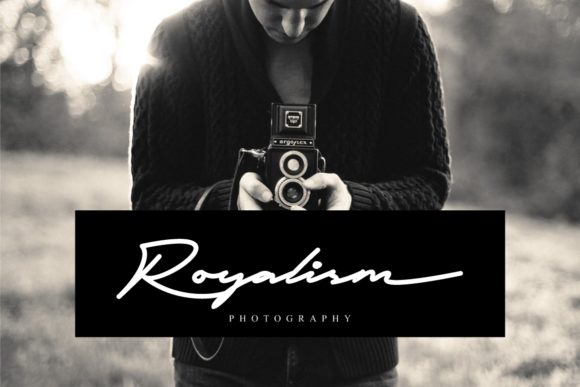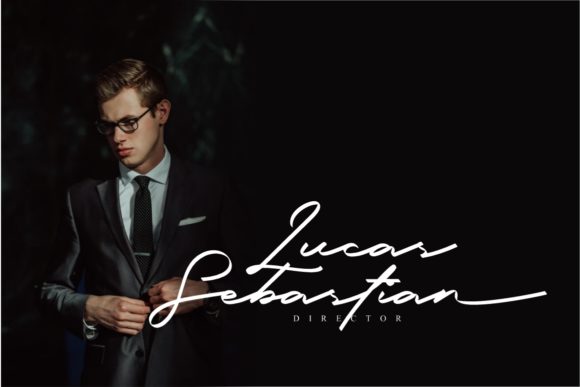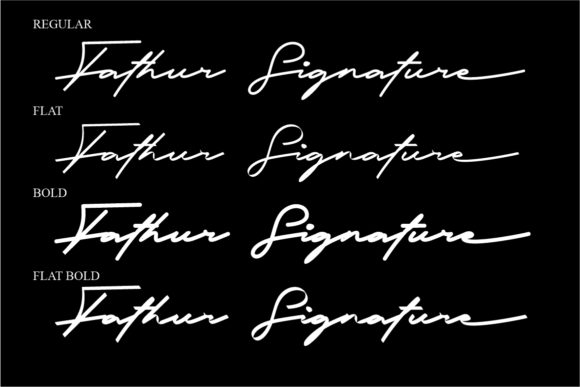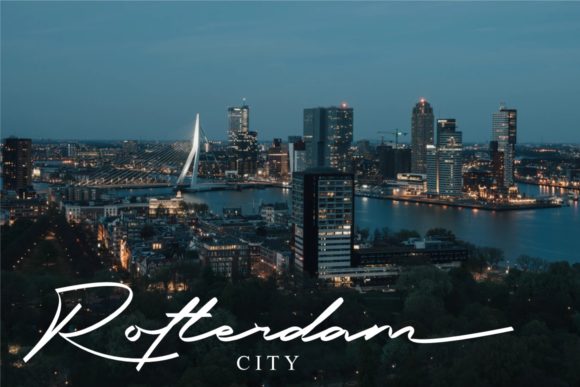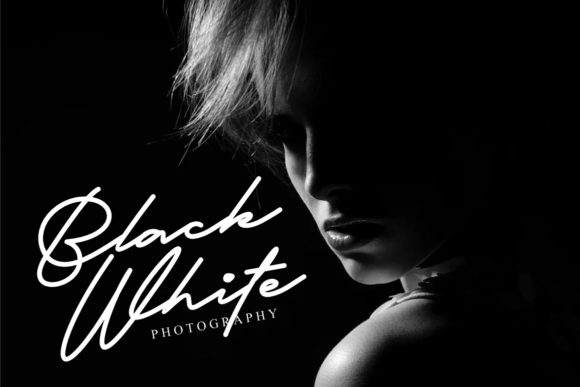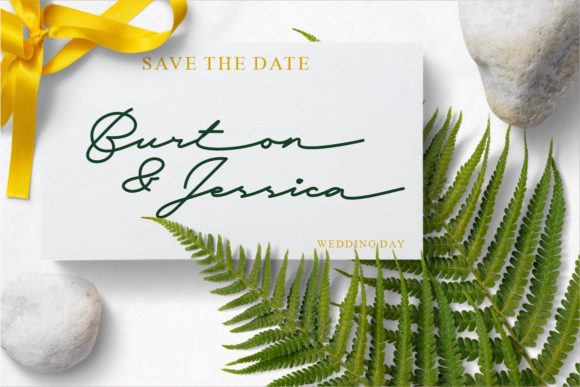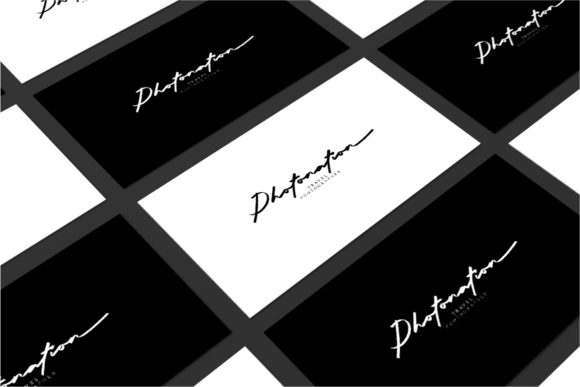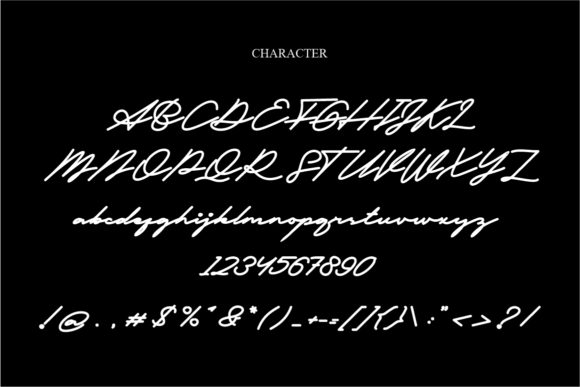
Fathur Font
About Fathur Font
Fathur is a modern and flowing handwritten font. Use it to make your ideas even more realistic and create spectacular designs!